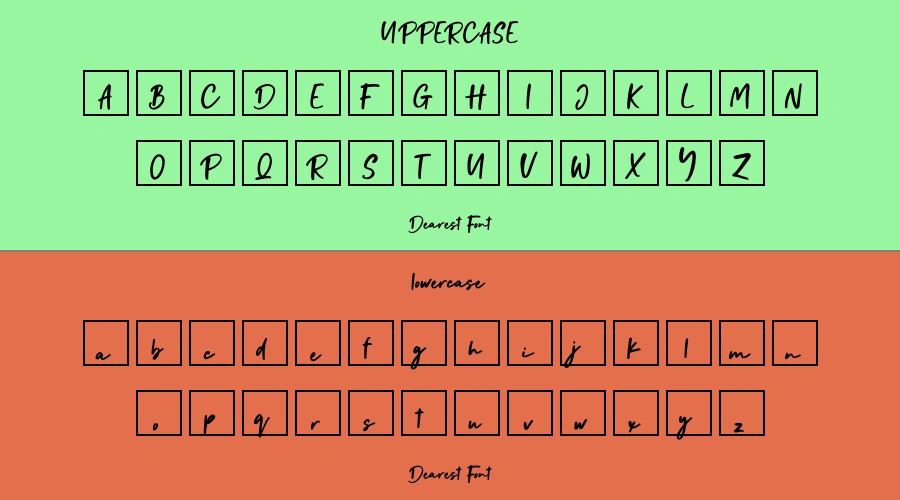
About Dearest Font
Designed with precision, Dearest Font merges artistic freedom with generational appeal in every character. This versatility makes it particularly effective for advertising campaigns, where consistency and cultural authenticity directly impact communication quality. Each letterform demonstrates meticulous craftsmanship.
Technical excellence shines through elements like rounded apexes and arrow sets, enhancing typographic versatility. In campaign headers settings, Dearest Font proves its worth through superior readability. The thoughtful execution of corner treatment and artistic influences ensures professional results.